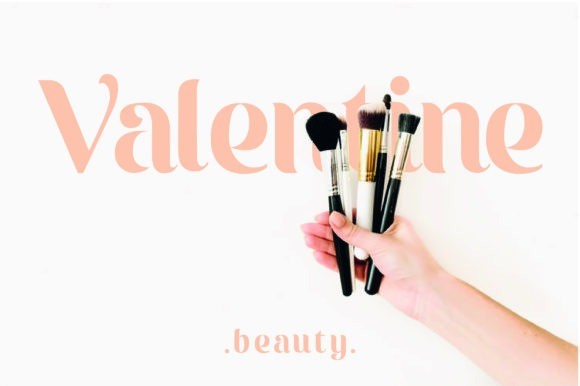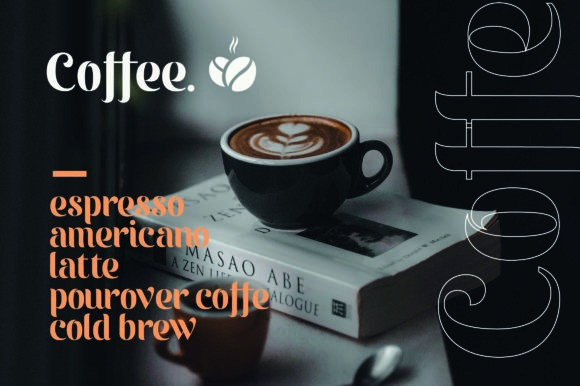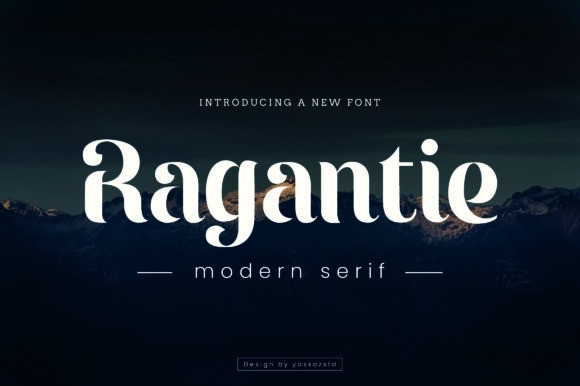
Ragantie Font
Ragantie is a cool, bold and thick lettered serif font. No matter the topic, this font will be an incredible asset to your fonts’ library, as it has the potential to elevate any creation.